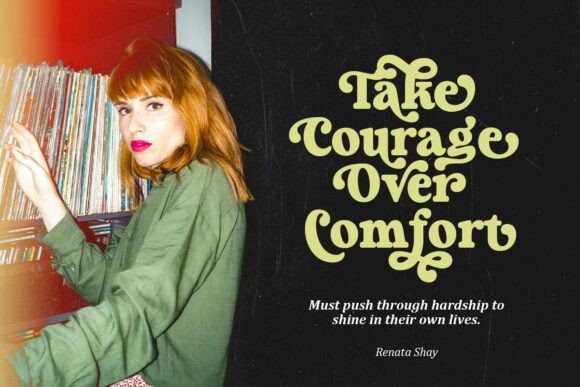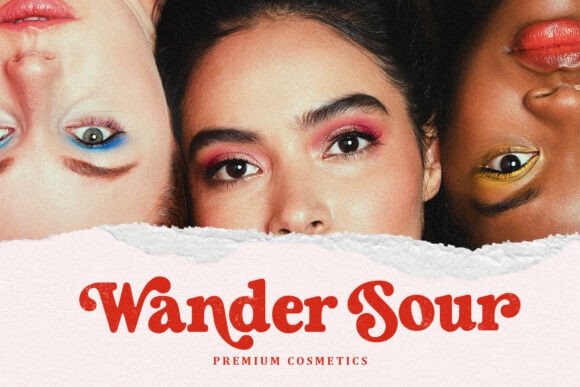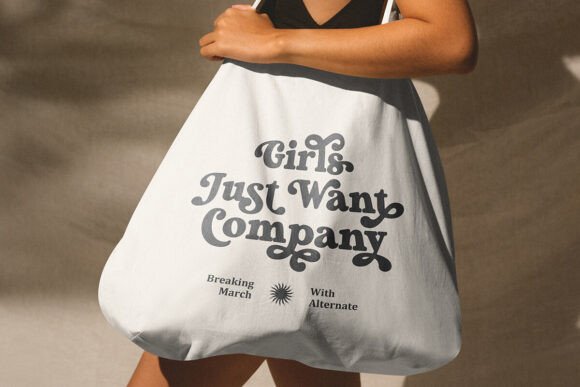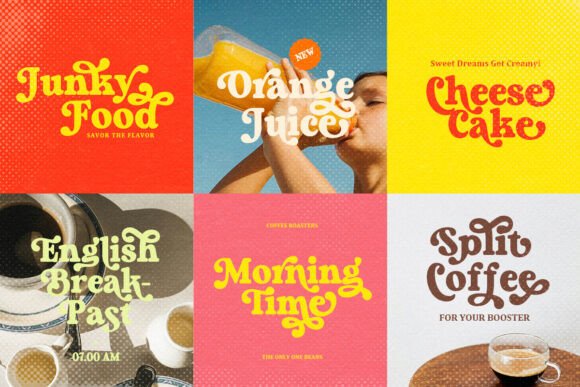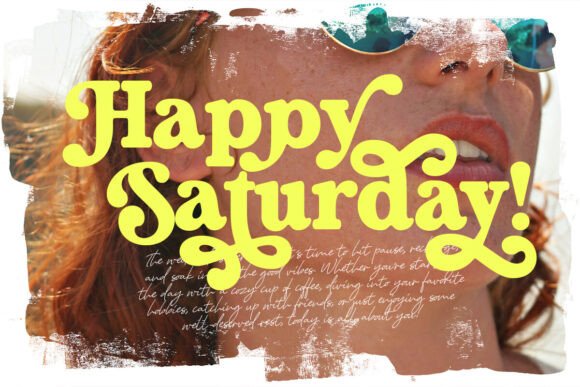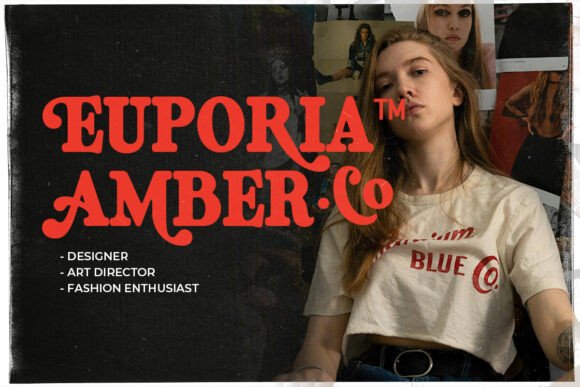
Discover the Groovy World of Breaking March Font
Have you ever been in the middle of a design project, and suddenly, you just can’t seem to find the right font? I recall a particularly frustrating experience while working on a retro-themed poster for a client. The design was almost complete, but the font I had chosen just wasn’t giving off the right vibes. That’s when I stumbled upon the Breaking March font, and it completely transformed my design.
A Personal Review of Breaking March Font
I’m excited to share my honest review of Breaking March, a retro and groovy bold serif font that’s become a staple in my design toolkit.
• ✨ Retro and Groovy Aesthetic: Breaking March has a unique, nostalgic feel that’s perfect for designs that require a vintage touch.
• ✅ Multiple Stylistic Alternates: With up to 7 sets of stylistic alternates for each character, you can easily mix and match to create a truly unique look.
• 🌎 Multi-Language Support: Whether you’re working on a global project or simply want to cater to a diverse audience, Breaking March has got you covered.
• 💼 Versatility: This font is perfect for a wide range of design projects, including magazines, advertising, posters, branding, and quotes.
While Breaking March is an excellent font, there are a few minor quirks to be aware of:
• 🤔 Learning Curve: With so many stylistic alternates available, it may take some time to get familiar with the font’s capabilities and learn how to navigate the various glyphs.
• ⚠️ Overuse: Due to its bold and attention-grabbing nature, it’s easy to overuse Breaking March. Make sure to balance it with other design elements to avoid overwhelming your audience.
The Backstory Behind Breaking March Font
While the true story behind Breaking March’s creation is unknown, it’s easy to imagine that the designer was inspired by the groovy and funky designs of the 1970s. Perhaps they spent hours scouring vintage posters, magazines, and advertisements for inspiration. Whatever the story, Breaking March is a love letter to the retro aesthetic.
What type of projects is Breaking March best suited for? Breaking March is perfect for designs that require a retro or vintage touch, such as magazine layouts, advertising campaigns, posters, branding, and quotes.
Does Breaking March support multi-language? Yes, Breaking March supports multi-language, making it a great choice for global projects or designs that cater to diverse audiences.